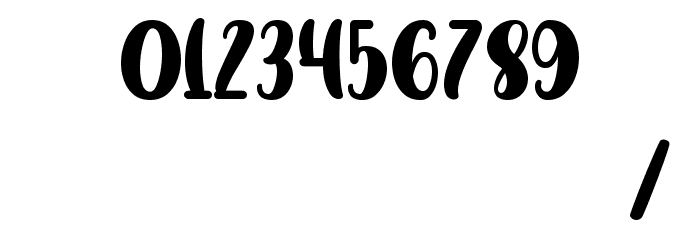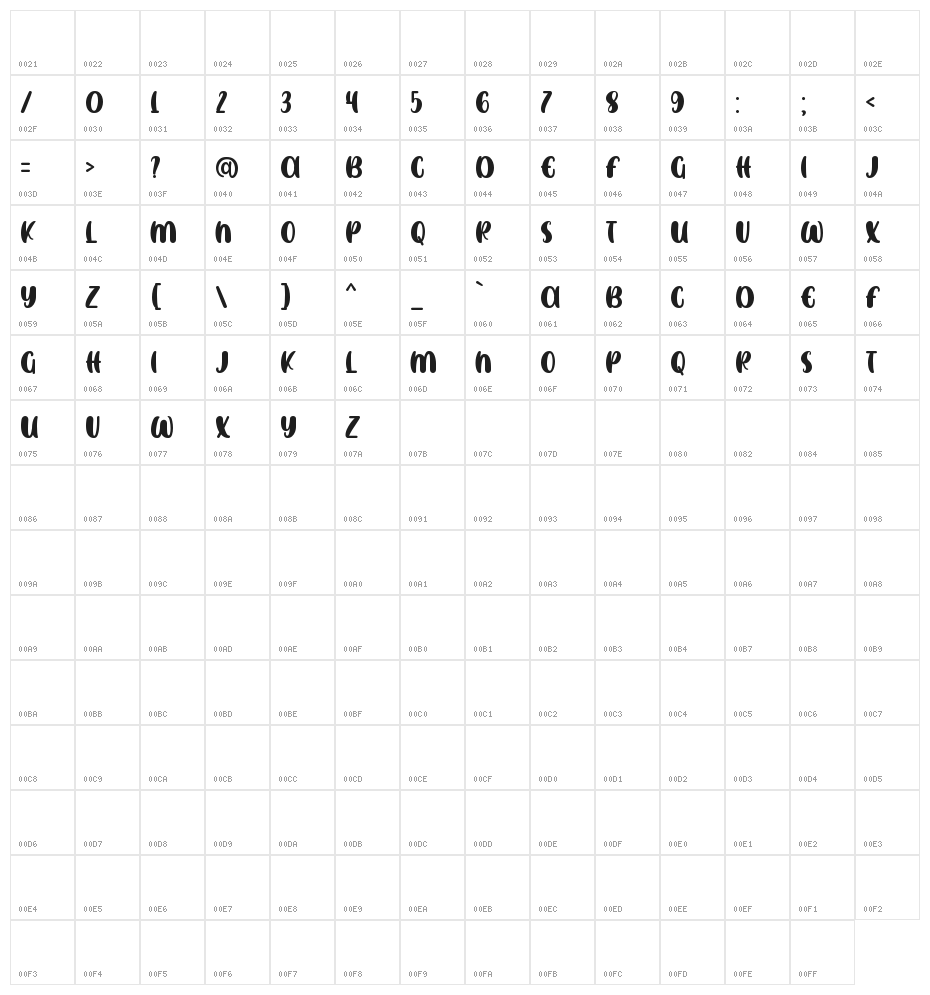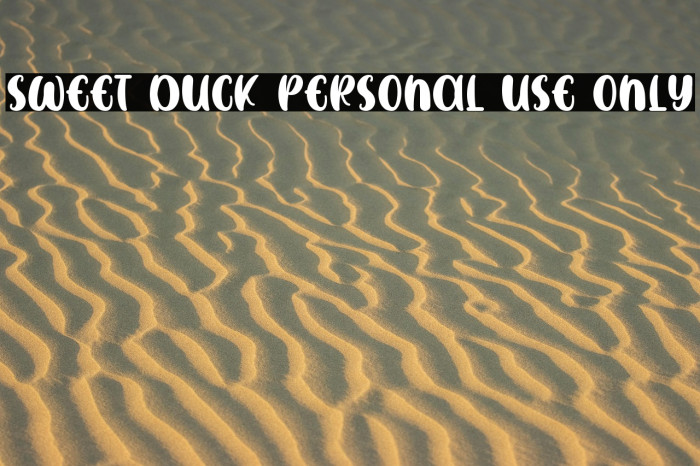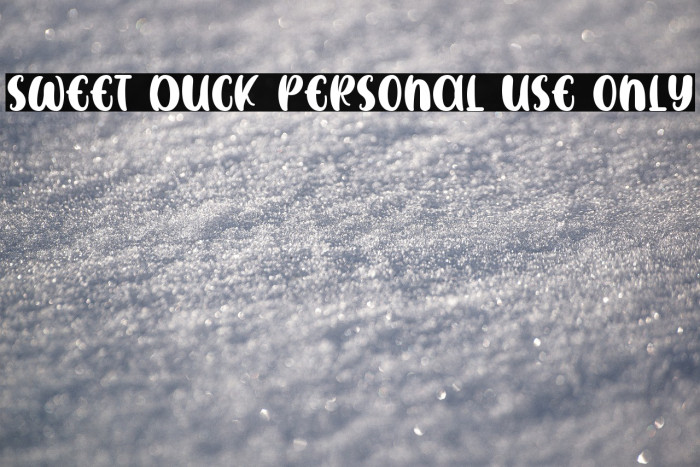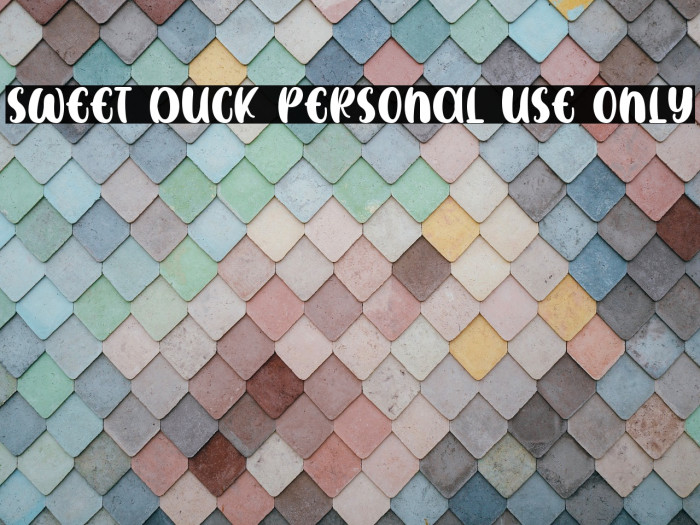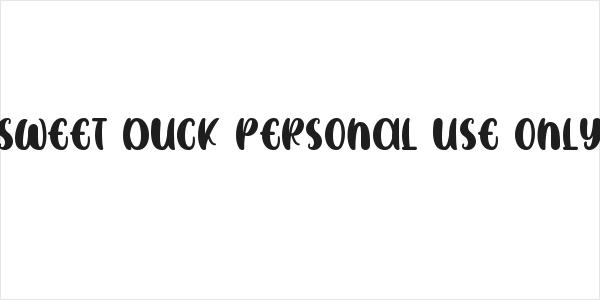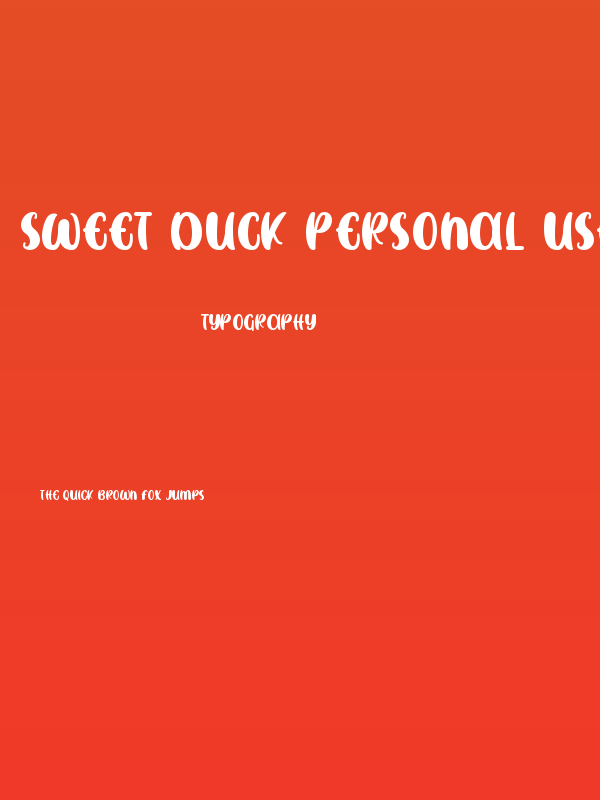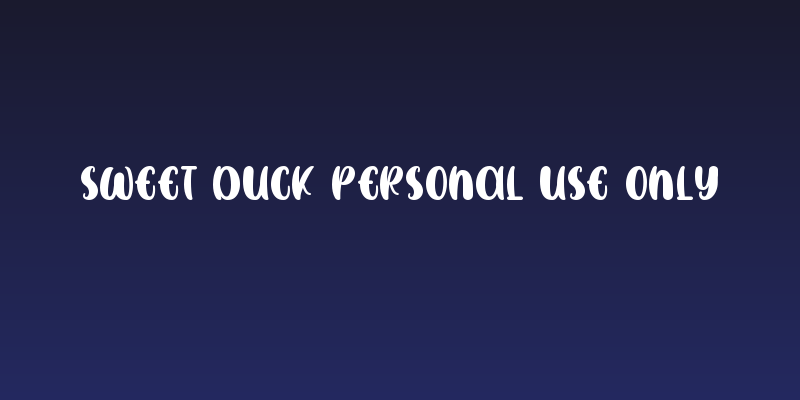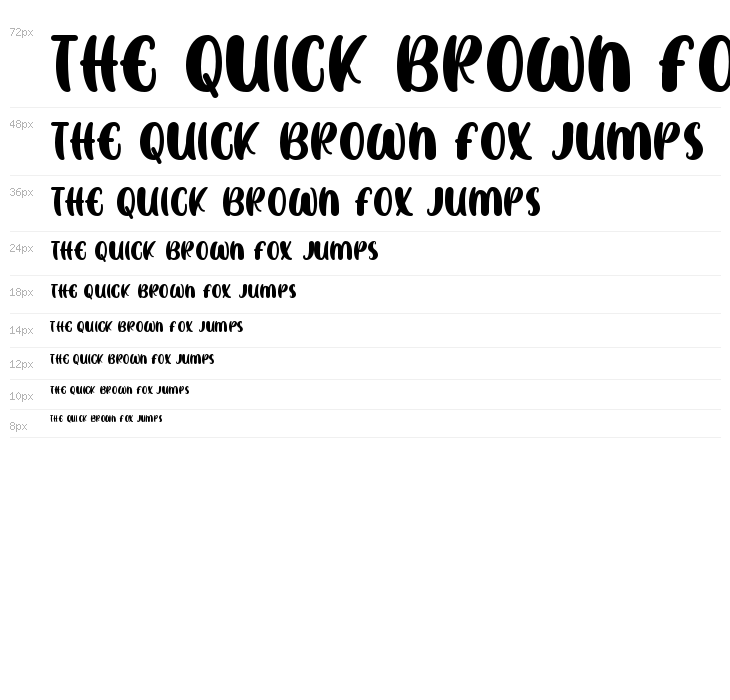
SWEET DUCK Personal Use Only Font
SWEET DUCK Personal Use Only Description
This playful and bold font features rounded, thick strokes that give it a friendly and approachable appearance. The characters are designed with a whimsical flair, incorporating smooth curves and a slightly exaggerated width that adds to its charm. The uppercase and lowercase letters maintain a consistent style, ensuring readability while still offering a unique visual appeal. The numbers and special characters are crafted to match the overall aesthetic, making this font versatile for various creative projects.
| Proposed Projects | Ideal for children's books, playful branding, greeting cards, and fun posters. |